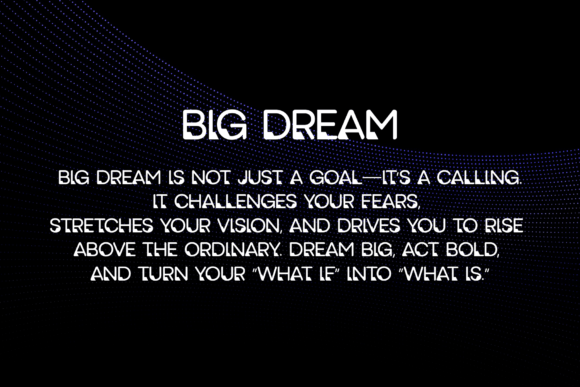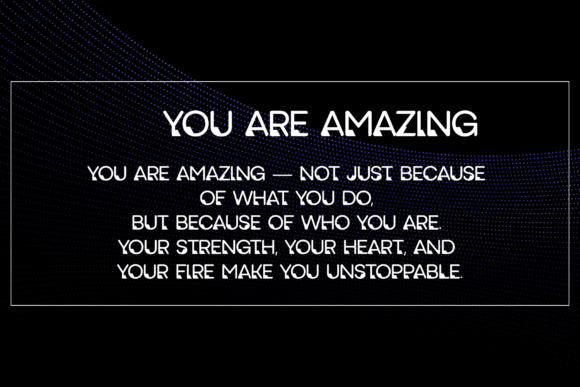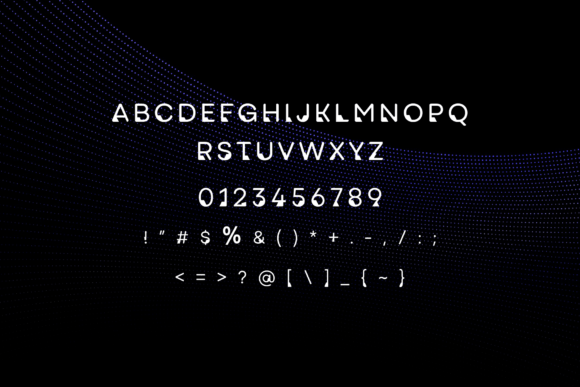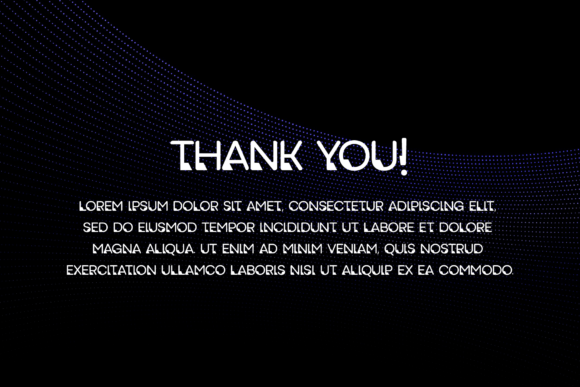
Unleash Your Creativity with Bigborg Font: The Ultimate Display Font
Are you tired of using the same old fonts for your creative projects? Look no further than Bigborg Font, an incredibly unique display font that’s sure to take your designs to the next level. Masterfully designed to become a true favorite, Bigborg Font has the potential to bring each of your creative ideas to the highest level, making it a must-have for designers and crafters alike.
The Story Behind Bigborg Font
Bigborg Font is more than just a font – it’s a statement piece. Its unique design is the brainchild of a talented team of typographers who sought to create a font that would stand out from the rest. With its bold and eye-catching style, Bigborg Font is perfect for making a statement, whether you’re designing a logo, creating a poster, or crafting a social media graphic.
What Makes Bigborg Font So Special?
So, what sets Bigborg Font apart from other display fonts on the market? Here are just a few features that make it a cut above the rest:
- Unique Design: Bigborg Font boasts a one-of-a-kind design that’s sure to turn heads. Its bold lines and distinctive shape make it perfect for creating eye-catching headlines and titles.
- High Versatility: Whether you’re designing a logo, creating a poster, or crafting a social media graphic, Bigborg Font is the perfect choice. Its versatility makes it suitable for a wide range of creative projects.
- Easy to Read: Despite its bold design, Bigborg Font is surprisingly easy to read, making it perfect for use in a variety of contexts, from digital media to print materials.
- Customizable: With Bigborg Font, you can easily customize the font to suit your needs. Whether you want to change the color, size, or style, Bigborg Font makes it easy to get the look you want.
How to Use Bigborg Font in Your Designs
- Use it as a Headline Font: Bigborg Font is perfect for use as a headline font, adding a bold and eye-catching touch to your designs.
- Pair it with Other Fonts: For added visual interest, try pairing Bigborg Font with other fonts. Its bold design makes it a great choice for pairing with simpler fonts.
- High-Quality: Bigborg Font is a high-quality font that’s designed to deliver exceptional results. Its clear and crisp lines make it perfect for use in a variety of contexts, from digital media to print materials.